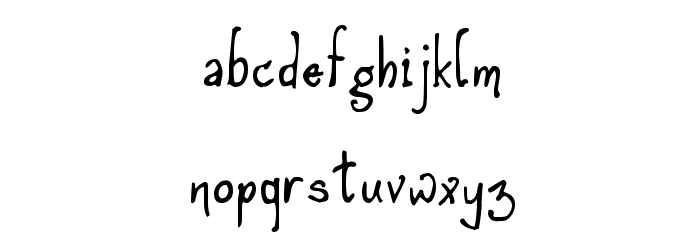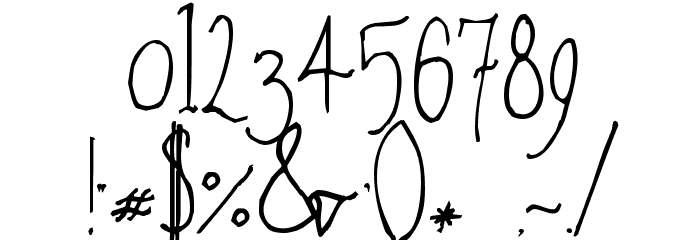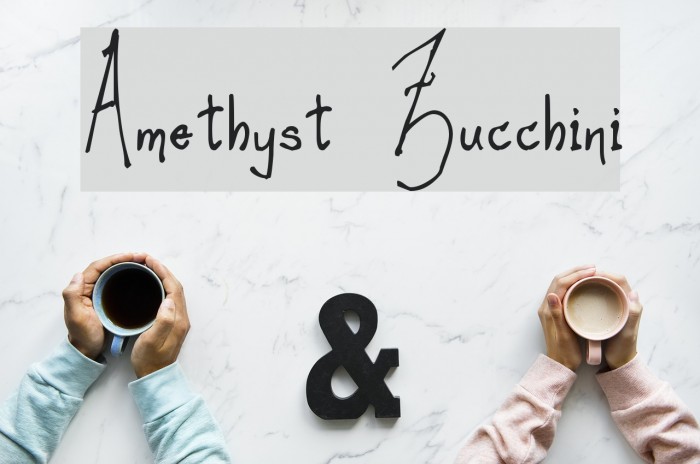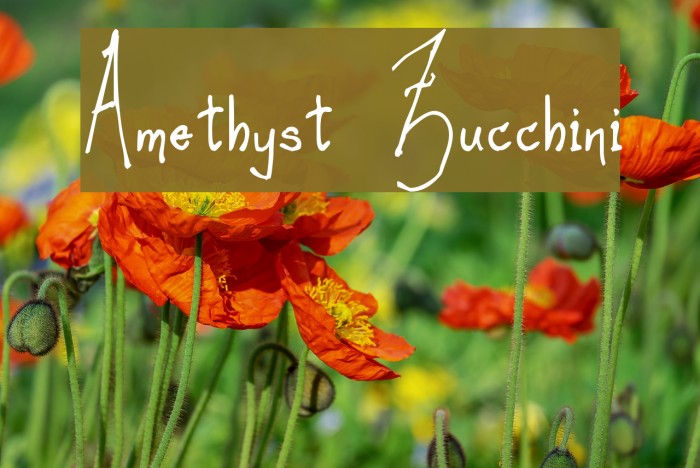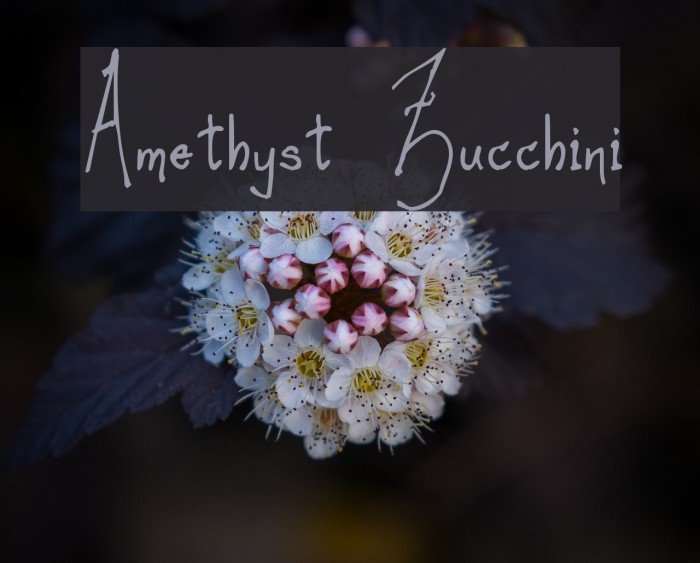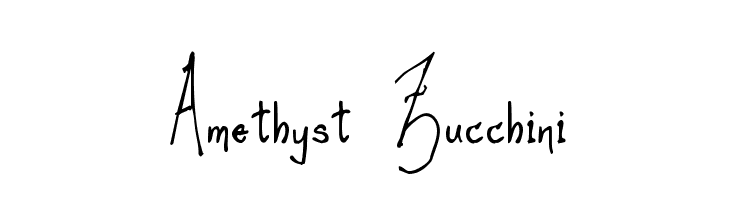
Amethyst Zucchini Font
This font exhibits a whimsical and playful style, characterized by its irregular and hand-drawn appearance. The uppercase letters are tall and narrow, with exaggerated curves and varying stroke thicknesses that lend a dynamic and lively feel. The lowercase letters maintain a similar hand-drawn quality, with some letters featuring unique flourishes and loops. The numerals are quirky and distinct, each with its own personality, while the special characters add to the font's eclectic charm. Overall, this font conveys a sense of creativity and spontaneity, making it ideal for projects that require a touch of individuality and artistic flair.
A whimsical, hand-drawn font with playful, irregular strokes and unique character designs.